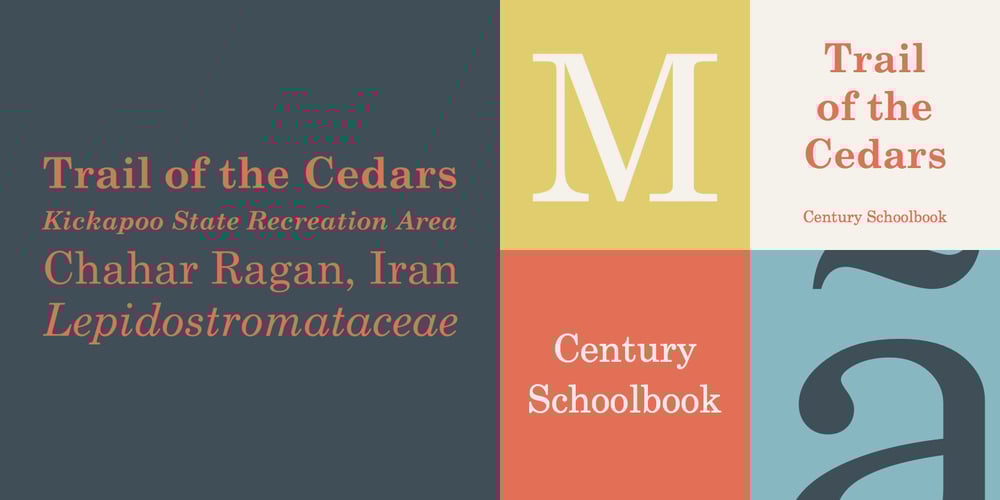
Century Schoolbook
Century Schoolbook font
Century Schoolbook Font Family was designed by Morris Fuller Benton and published by Bitstream. Century Schoolbook contains 6 styles and family package options. In 1924 Morris Fuller Benton designed for ATF a new variation on his father’s design, Century Oldstyle. Century Schoolbook has become a synonym for readability.